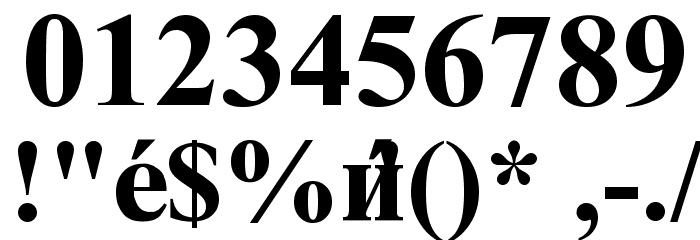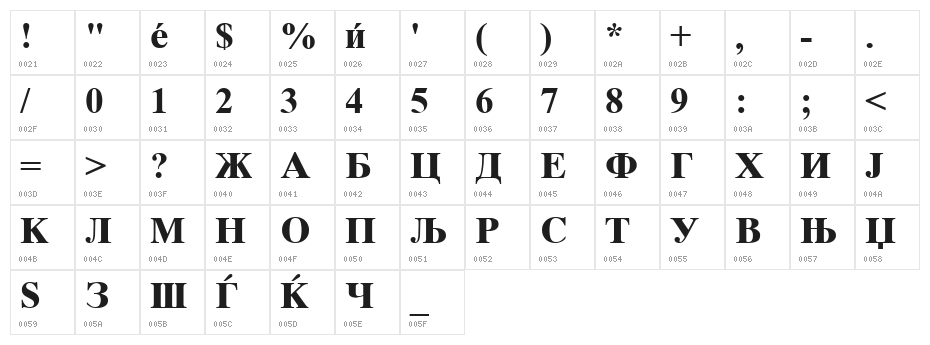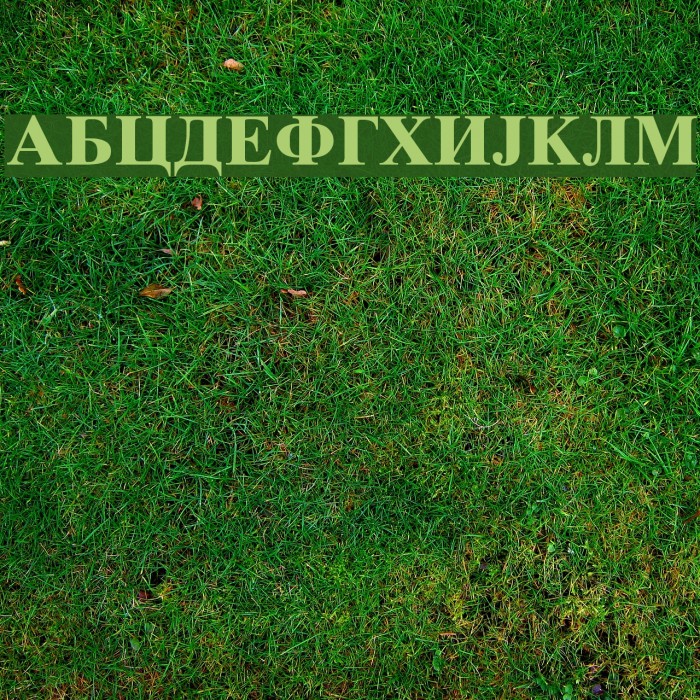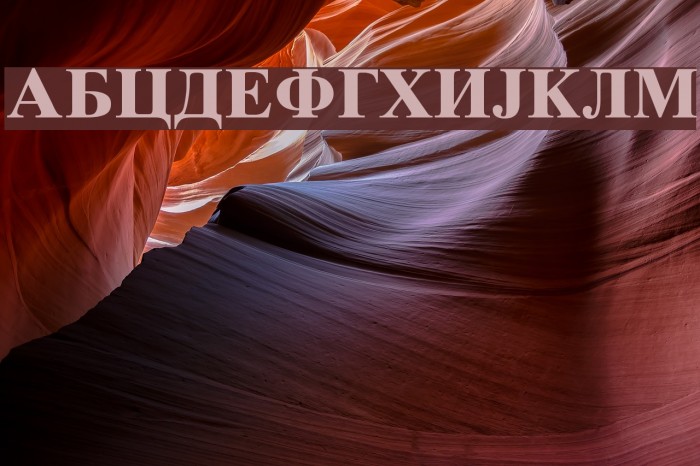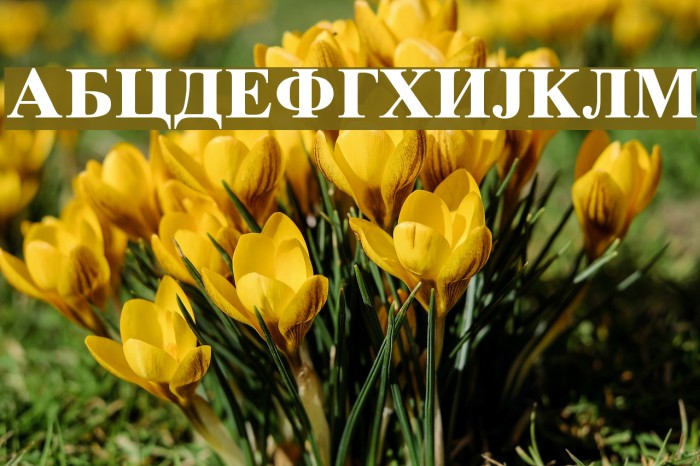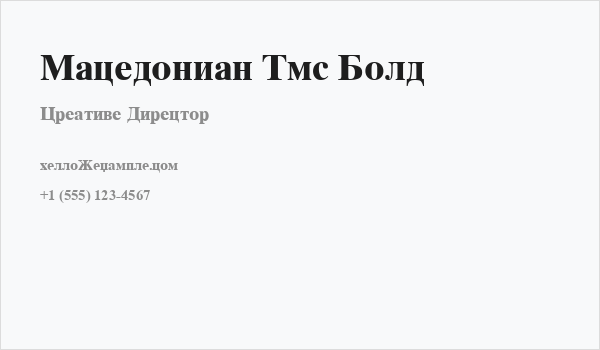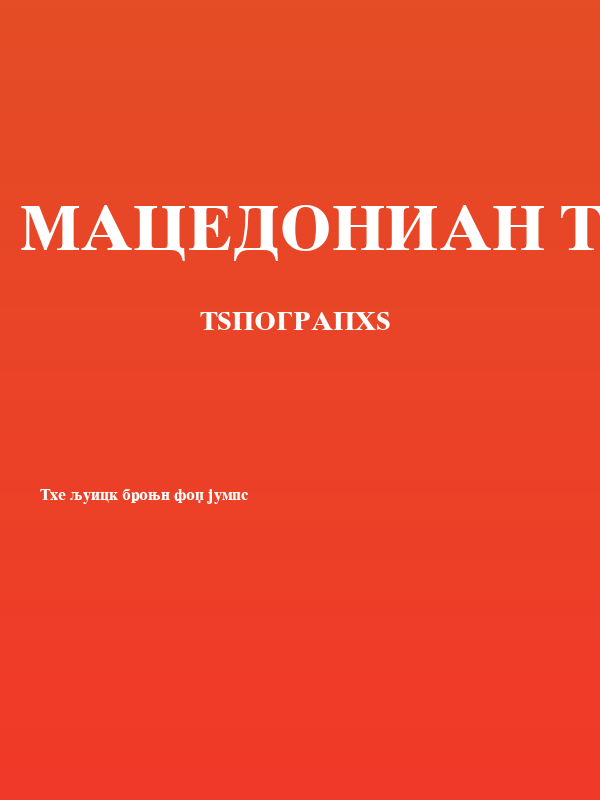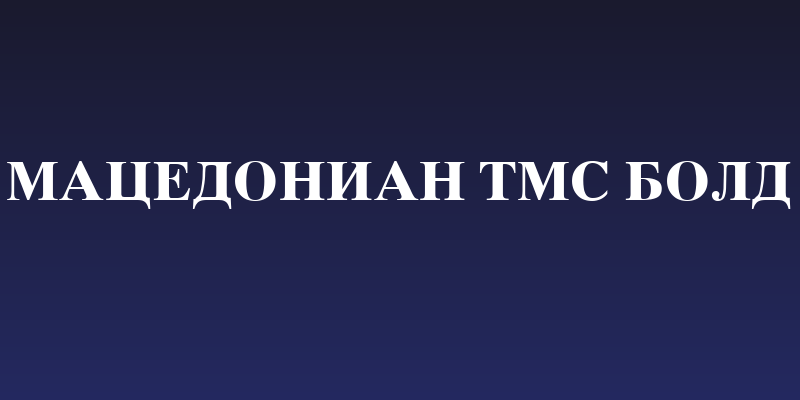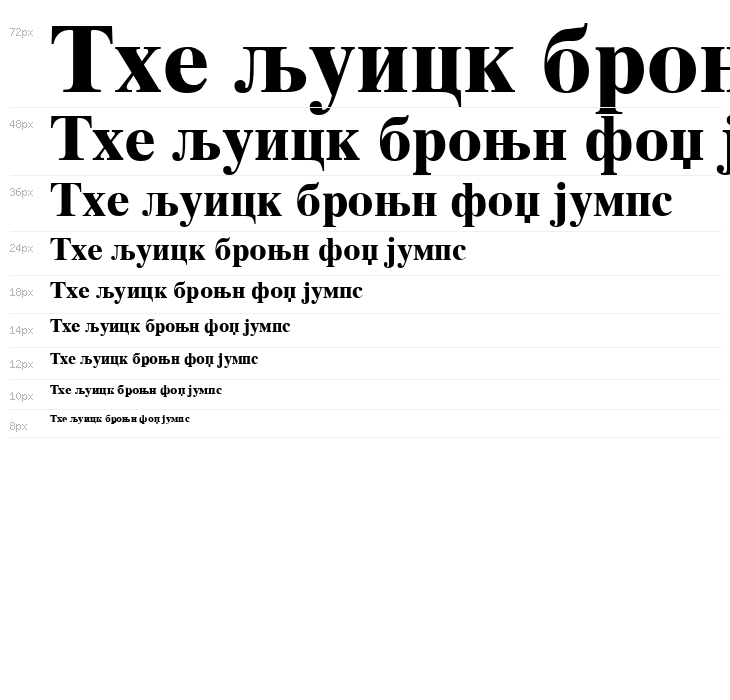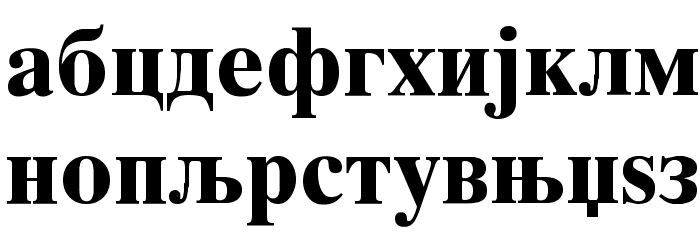
Macedonian Tms Bold Font
Macedonian Tms Bold Description
This font exhibits a strong and bold serif style, characterized by its prominent serifs and thick strokes. The uppercase letters are well-proportioned with a classic elegance, while the lowercase letters maintain a consistent weight, providing a harmonious balance. The numerals are clear and robust, ensuring readability. Special characters are designed with the same boldness, making them stand out. The overall design is traditional yet impactful, suitable for conveying authority and sophistication.
| Use Case | Headlines, Logos, Formal documents |
| Proposed Projects | Ideal for formal documents, book covers, headlines, and branding materials that require a touch of sophistication and authority. |